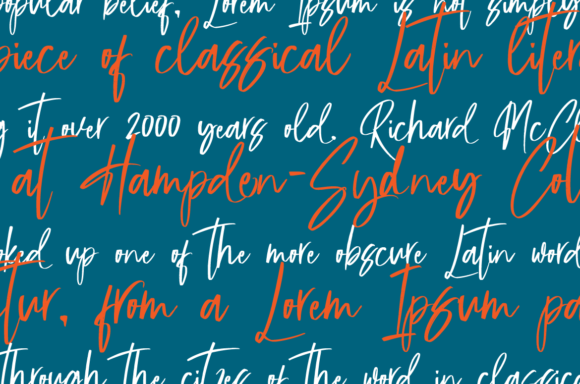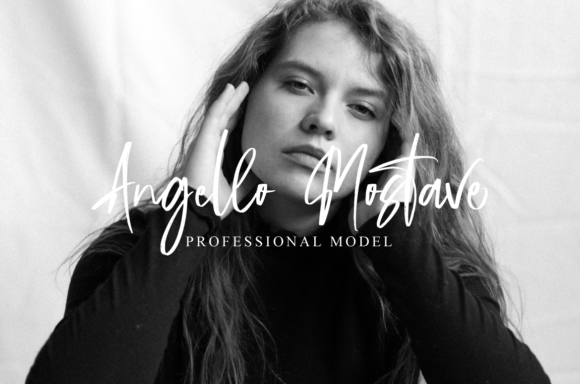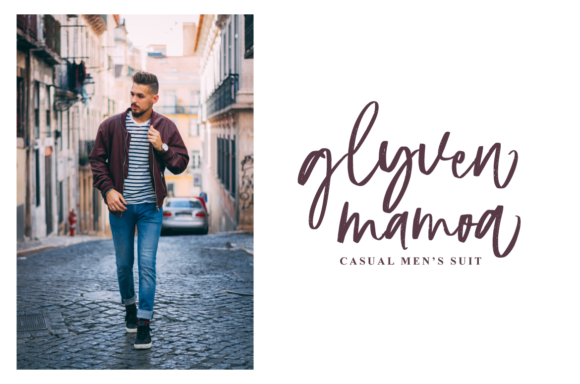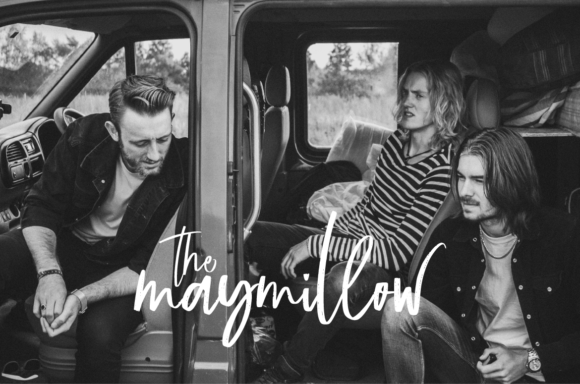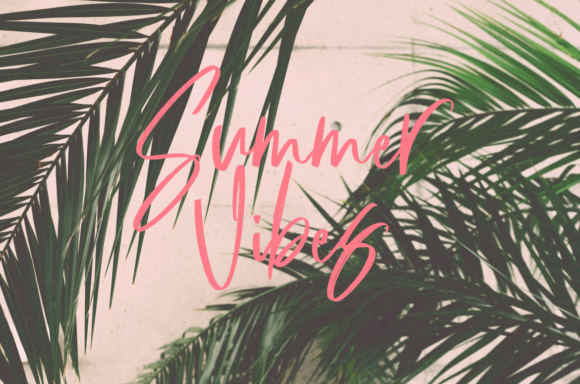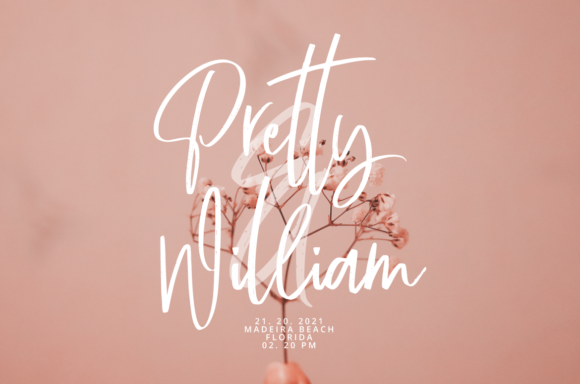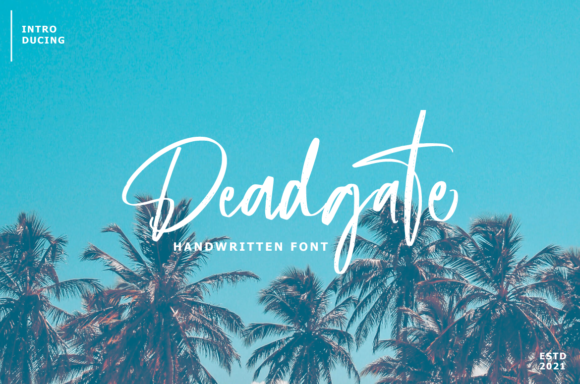
Introducing Deadgate Font: A Timeless Handwritten Masterpiece
In the world of typography, fonts play a crucial role in making or breaking a design. A well-chosen font can elevate your brand’s visual identity, making it more recognizable and memorable. If you’re a designer, craftsperson, or simply a creative enthusiast, you’re likely always on the lookout for unique and captivating fonts to bring your projects to life. That’s where Deadgate Font comes in – a lovely and timeless handwritten font that’s sure to make your designs pop.
The Charm of Deadgate Font
Deadgate Font is a beautiful, handwritten typeface that exudes a sense of elegance and sophistication. Its timeless quality makes it an excellent choice for a wide range of design applications, from logos and branding to quotes and creative writing projects. What sets Deadgate apart is its distinctive, hand-crafted feel, where every letter boasts a unique and beautiful touch. This attention to detail ensures that your designs will have a personal, human touch that resonates with your audience.
Perfect for Eye-Catching Logos and Branding
When it comes to creating logos and branding materials, the font you choose can make all the difference. Deadgate Font is specifically designed to help you create eye-catching, memorable designs that capture the essence of your brand. Its elegant, cursive strokes and unique letterforms ensure that your logo will stand out from the crowd, making it an excellent choice for:
Bringing Your Designs to Life
One of the most significant advantages of Deadgate Font is its ability to add a touch of personality to your designs. The font’s unique, hand-crafted feel ensures that every letter and word has a distinctive character that will make your designs come alive. Whether you’re working on a creative writing project, designing a quote, or simply looking to add some visual interest to your blog or website, Deadgate Font is an excellent choice.
Key Features of Deadgate Font
So, what makes Deadgate Font so special? Here are just a few of its key features:
- Timeless, handwritten design
- Unique and beautiful touch on every letter
- Elegant, cursive strokes
- Perfect for logos, branding, quotes, and creative writing projects
Tips for Using Deadgate Font
To get the most out of Deadgate Font, here are a few tips to keep in mind:
- Use it sparingly: Deadgate Font is best used in moderation. Try using it for headings, titles, or key phrases to add visual interest to your designs.
- Experiment with colors: Deadgate Font looks great in a variety of colors, so don’t be afraid to experiment and find the perfect hue for your design.
- Pair it with other fonts: Deadgate Font pairs well with a range of other fonts, so try combining it with a sans-serif font for body text or a bold font for added emphasis.
In conclusion, Deadgate Font is a beautiful, timeless handwritten font that’s perfect for designers, craftspersons, and creative enthusiasts. Its unique, hand-crafted feel and elegant, cursive strokes make it an excellent choice for a wide range of design applications, from logos and branding to quotes and creative writing projects. With its attention to detail and distinctive character, Deadgate Font is sure to bring your designs to life and help you create eye-catching, memorable visuals that resonate with your audience.
Get Ready to Elevate Your Designs with Deadgate Font